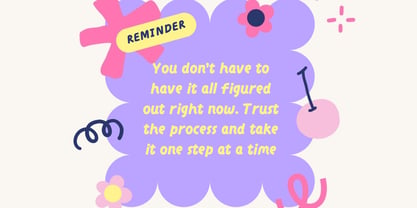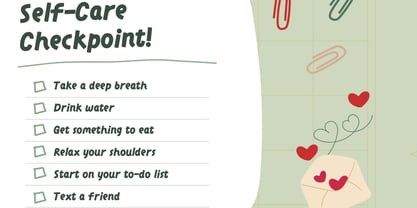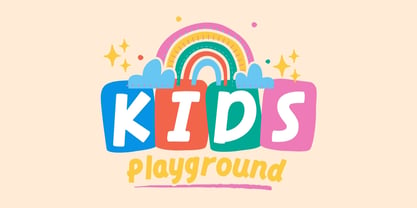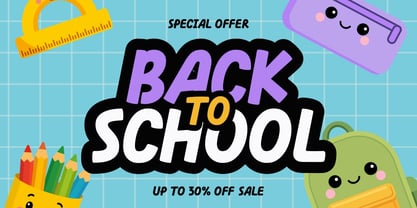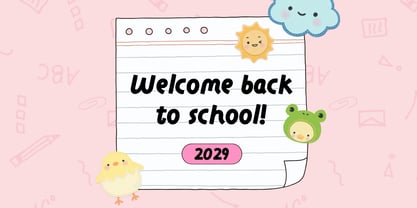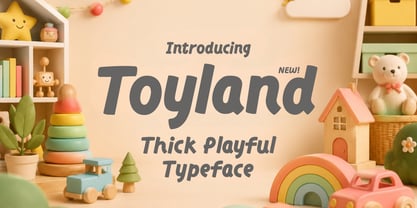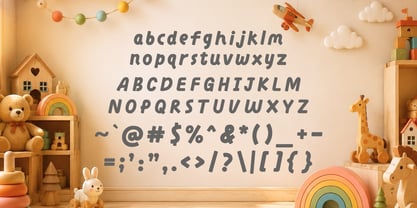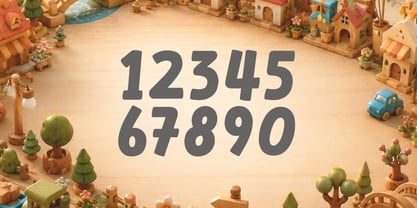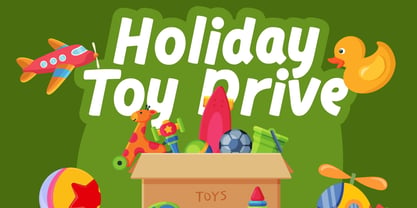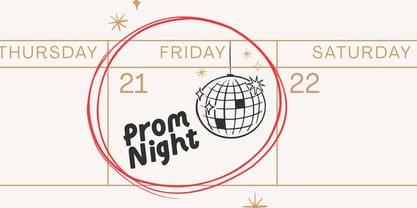
Toyland Palace
The Toyland Palace Font Family was designed by Igor Ovsyannykov and published by Hipfonts. Toyland Palace contains 1 styles. More about this family
Toyland brings pure childhood joy into every letter. Designed with irresistibly rounded shapes, chunky proportions, and a playful personality, this cheerful sans serif typeface is made to spark imagination and creativity. Whether you're designing for toddlers, classrooms, birthday parties, or fun-loving brands, Toyland instantly creates a welcoming and friendly atmosphere that both kids and parents will love.
Every character has been carefully crafted to feel soft, approachable, and full of personality while maintaining excellent readability across print and digital projects. Its clean construction and modern design make it incredibly versatile—from colorful classroom decorations and educational resources to playful logos, toy packaging, storybooks, YouTube thumbnails, Cricut crafts, stickers, and children's apparel.
Toyland is the perfect companion for teachers, parents, crafters, small businesses, and designers looking to create projects that feel joyful, memorable, and full of positive energy. The rounded letterforms make every word feel inviting, while the bold weight ensures your designs stand out with confidence.
Whether you're creating preschool worksheets, daycare branding, birthday invitations, classroom posters, educational games, nursery décor, or fun social media graphics, Toyland transforms ordinary text into something that feels playful, warm, and full of imagination.